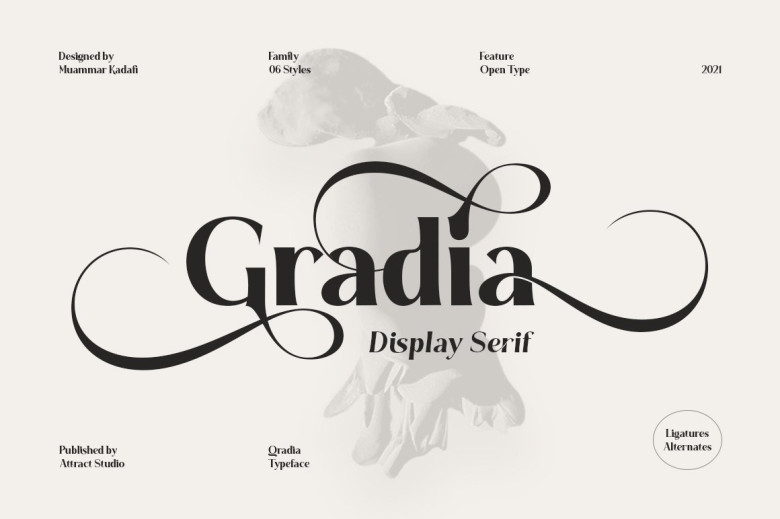
Gradia Font
A typeface with the elegance and uniqueness that only a true typographical design can bring, Gradia is a serif font perfect for any kind of design project from invitation cards to magazines, logos and branding right through to signage-and just about everything else creative. A total of 270 alternate characters, 116 ligatures that are perfect for all kinds of uses; it also supports Western, Central and Southeastern European languages. As well as the main OpenType GSUB with over 765 glyphs to show the spirit of the serif in the best light.
Gradia Serif Font